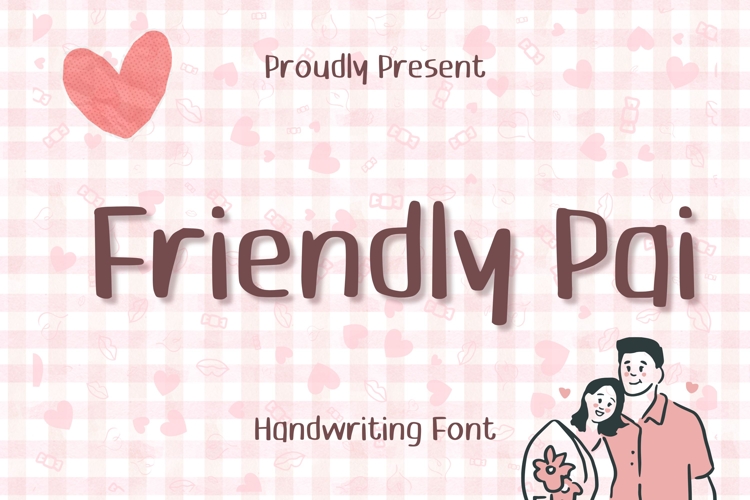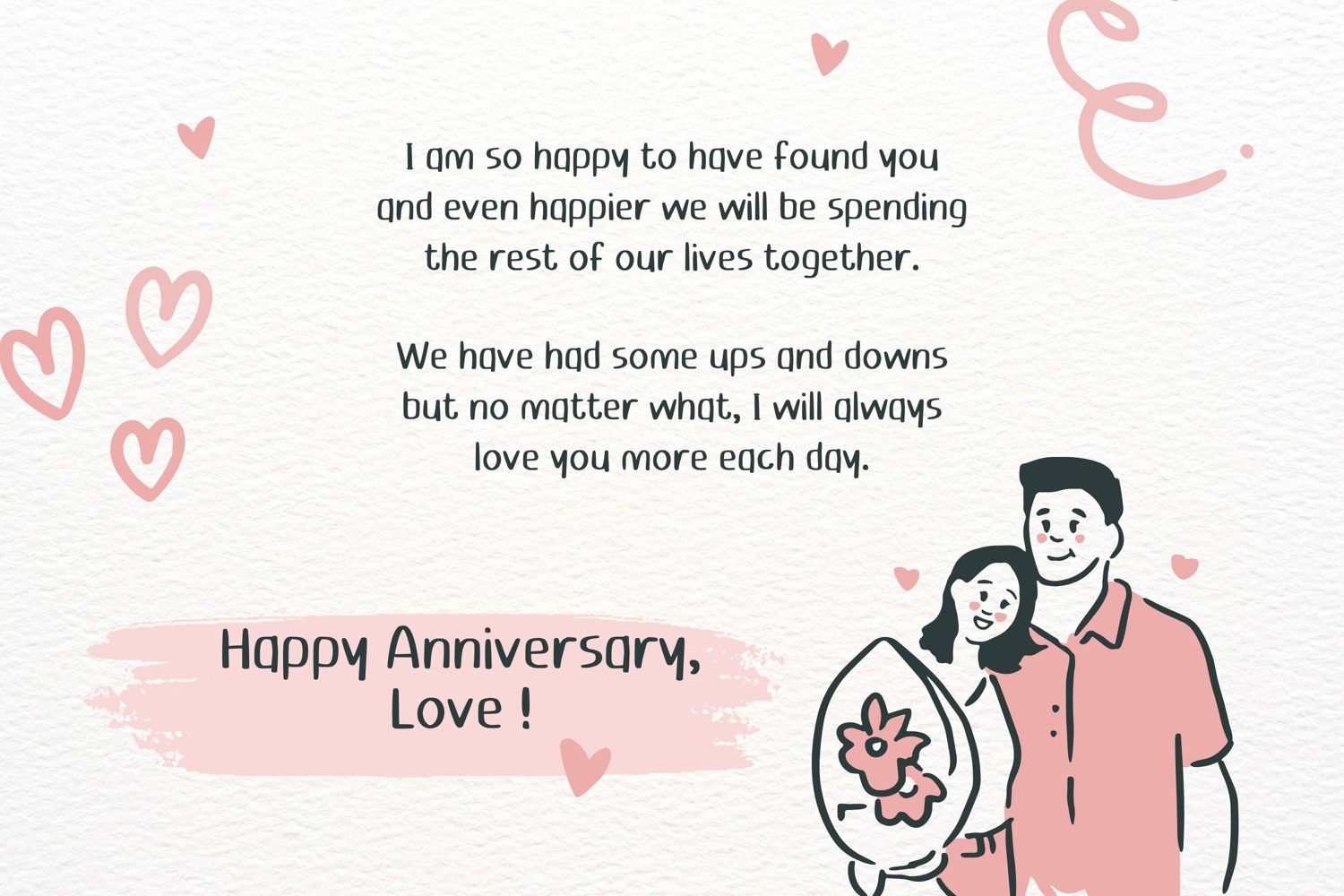
Introducing the enthralling charm of our visually appealing font, designed for those who love to add a bit of whimsy and friendliness to their congratulations and greeting cards. This delightful and easy-to-read typeface radiates warmth, making every celebration note, be it a birthday, anniversary or newborn, feel special and heartfelt. Every stroke of this cute, simple font evokes affection, adding a rich texture to your endearing messages. Not just for greeting cards, this versatile font can add a touch of sweetness to any design project you embark on.